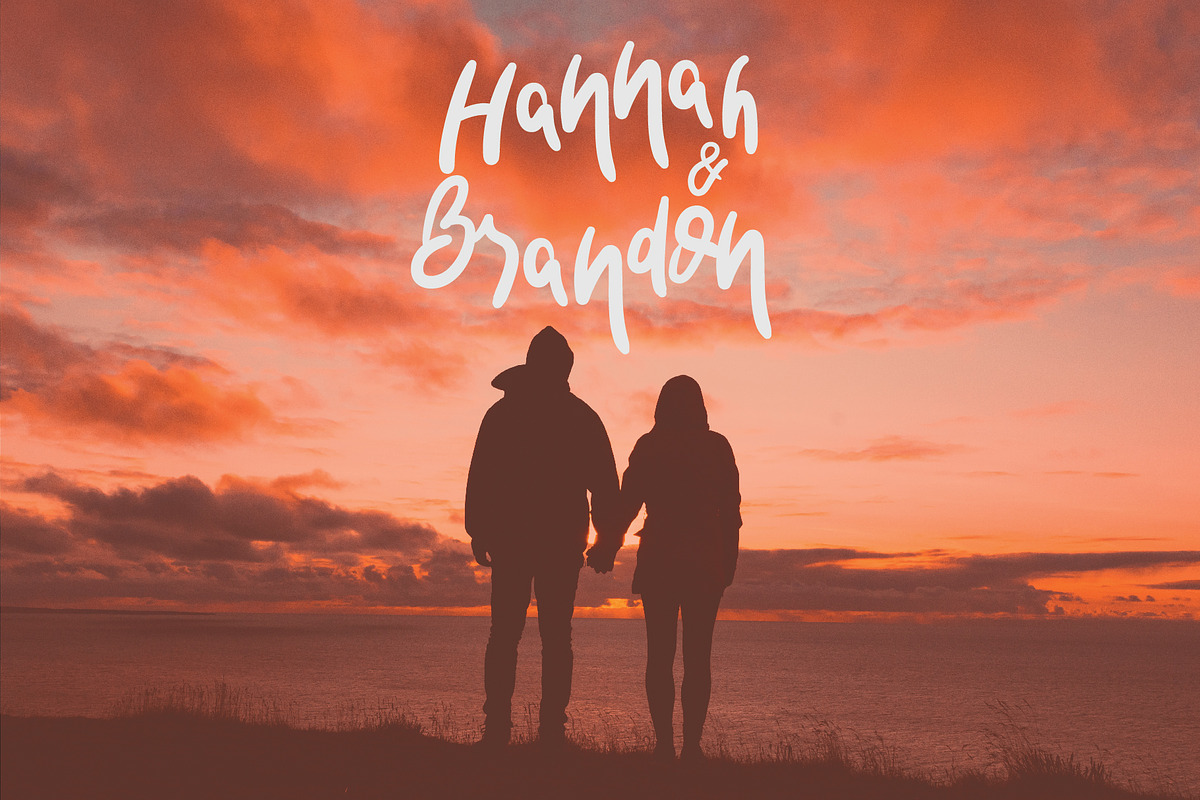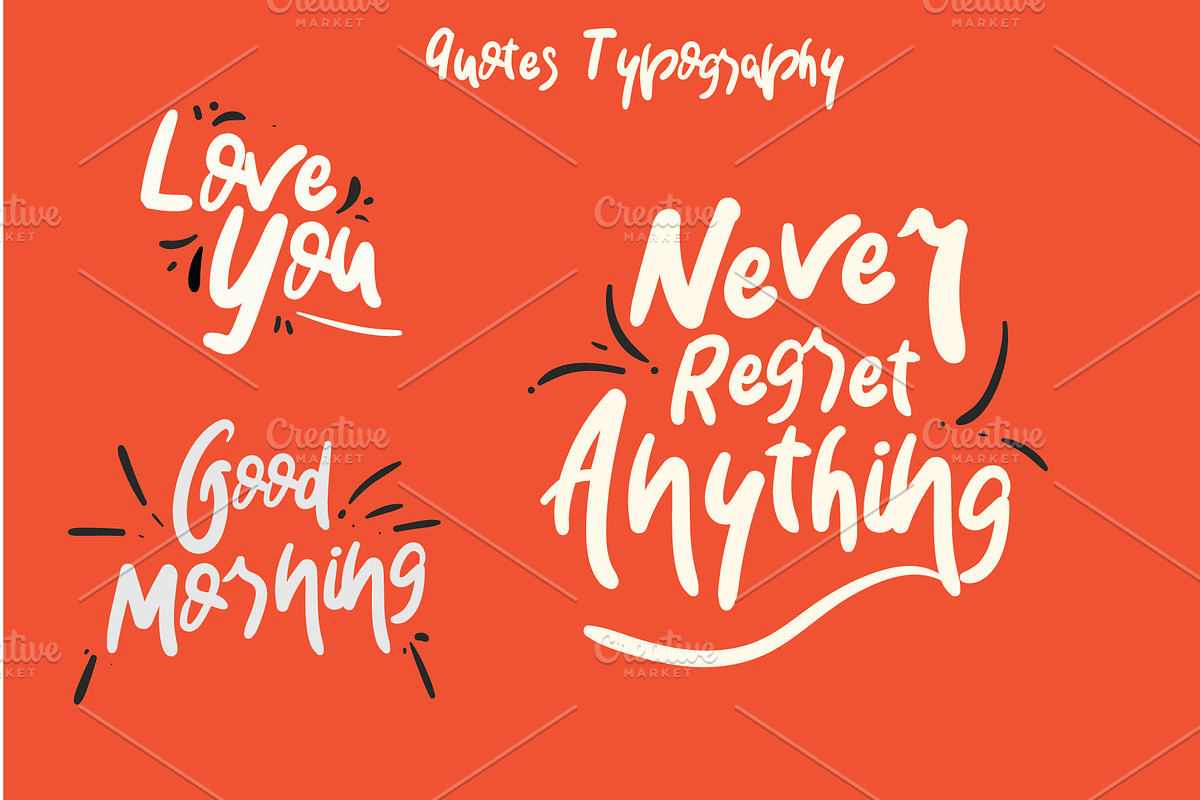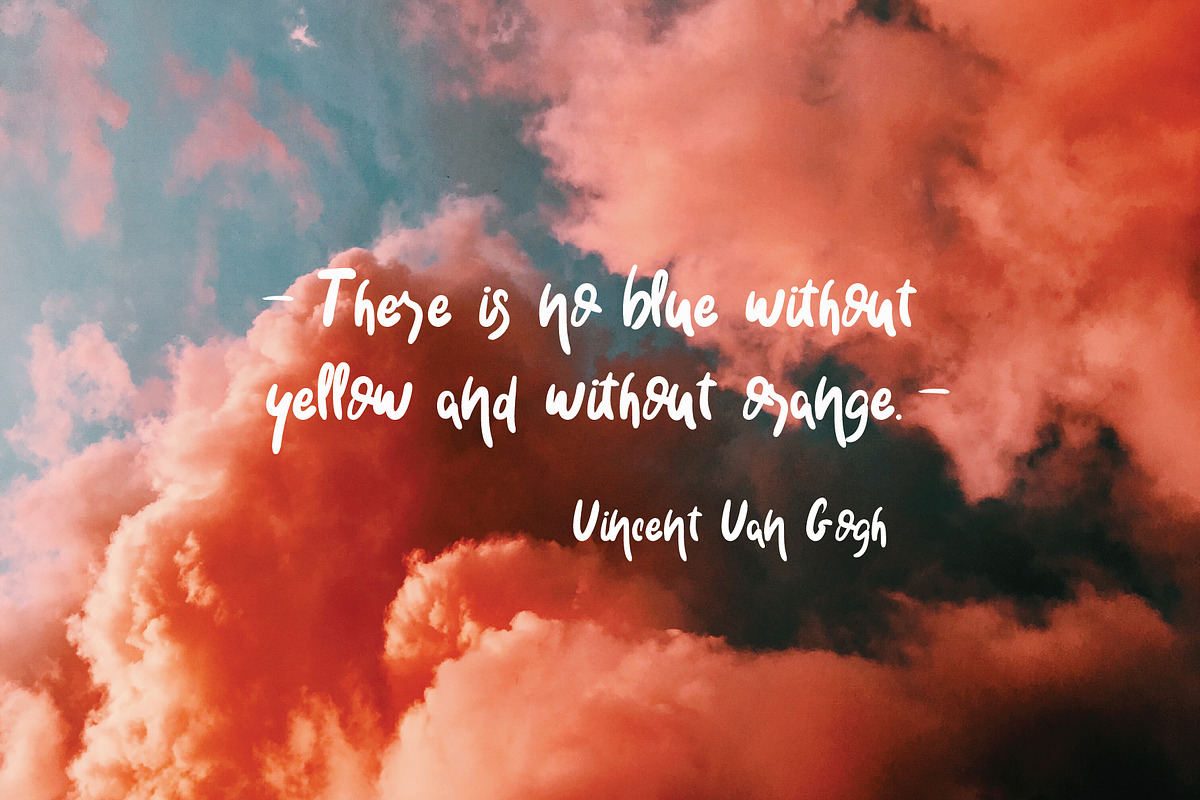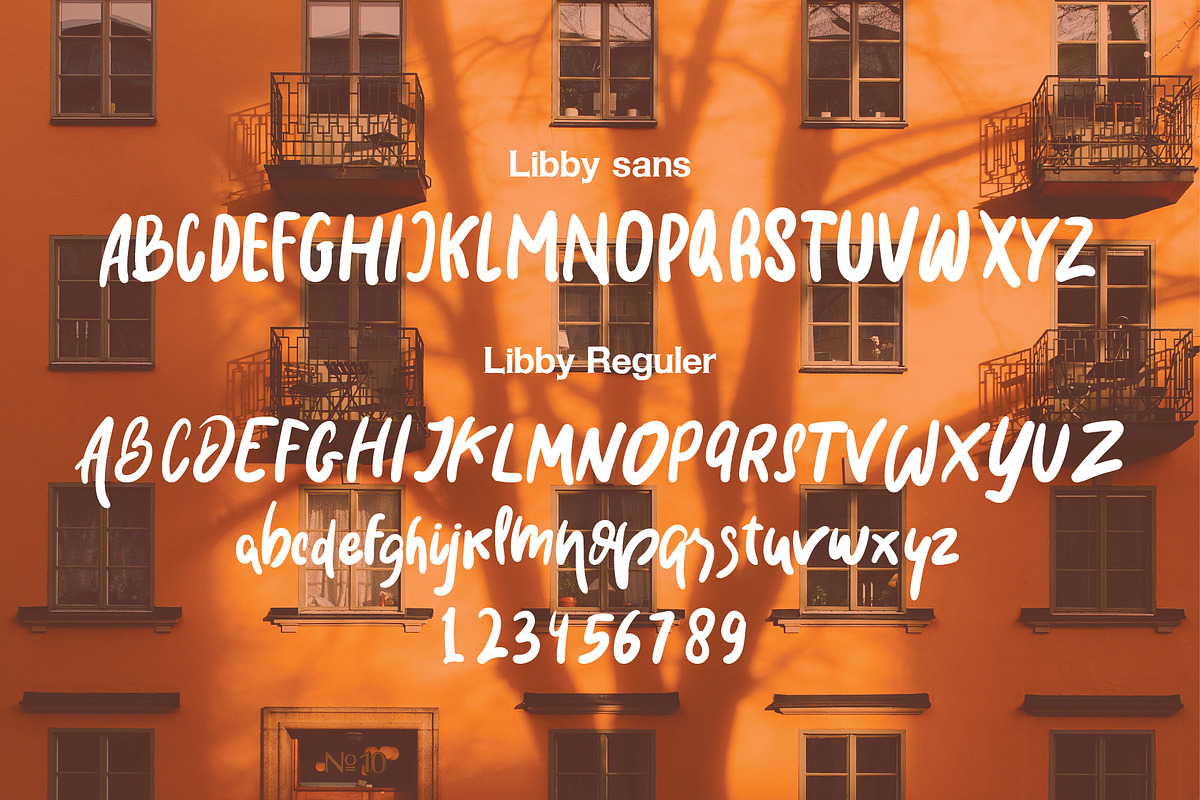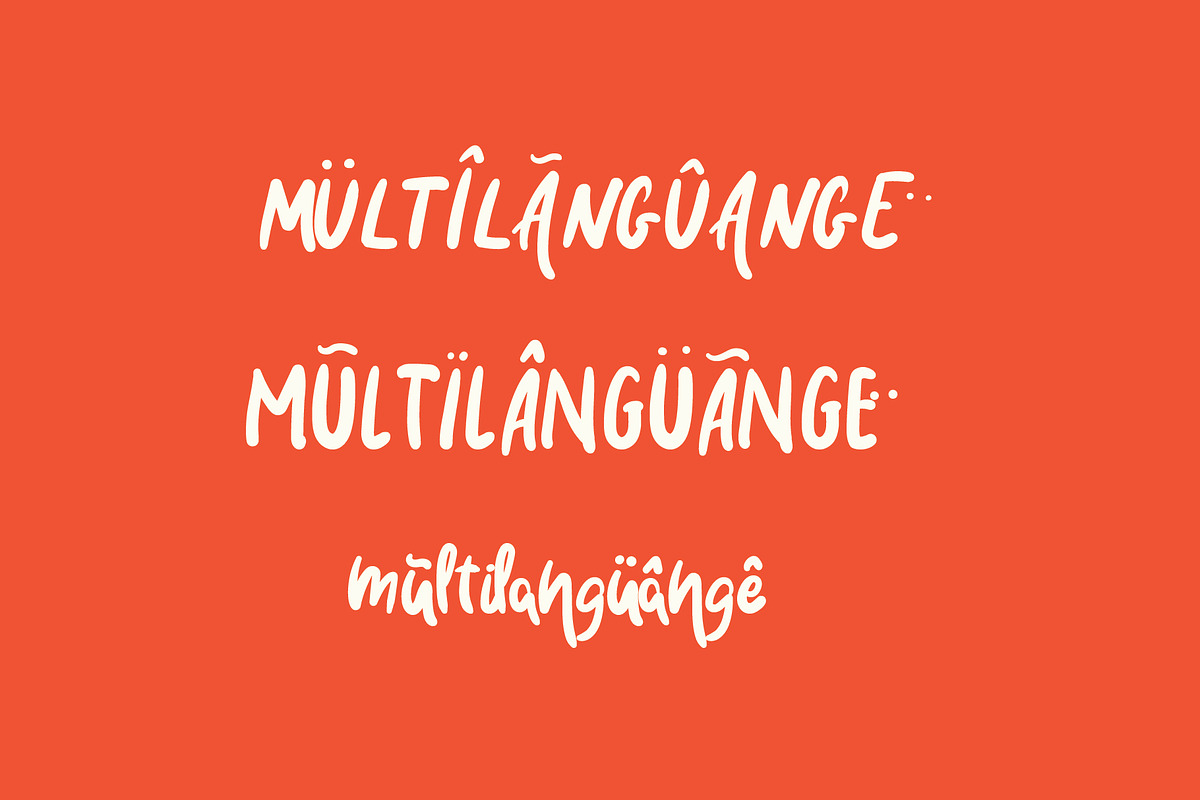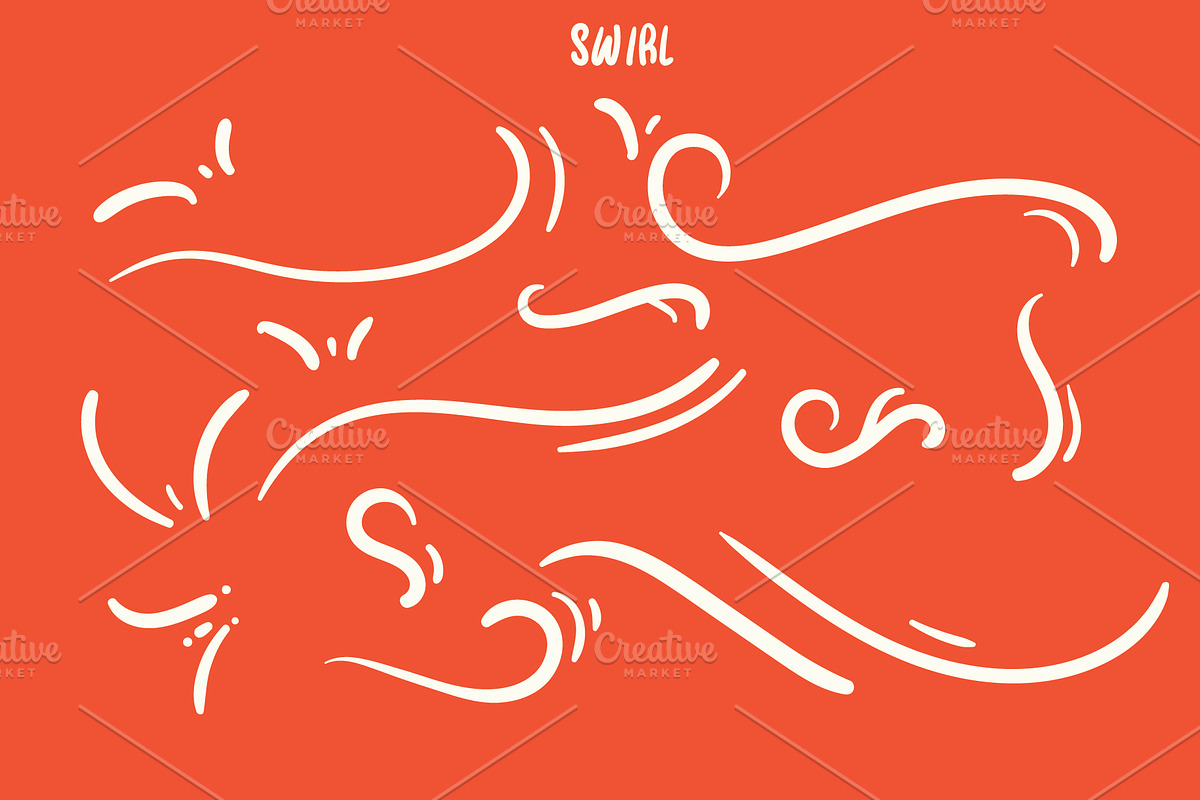
Libby Font - A Handwriting Font Duo
Libby Font - A Handwriting Font Duo BONUS VECTOR Libby font is font duo , not for casual use but suitable for Headline , Book cover , Presentation graphic , logo and many more.
Libby font is rude font but with the soft texture and lovable feel
Libby Font is Multilangual
Swirl Vector template
Libby Font - A Handwriting Font Duo by ulndsgn fits naturally into Branding, posters, packaging, typography.